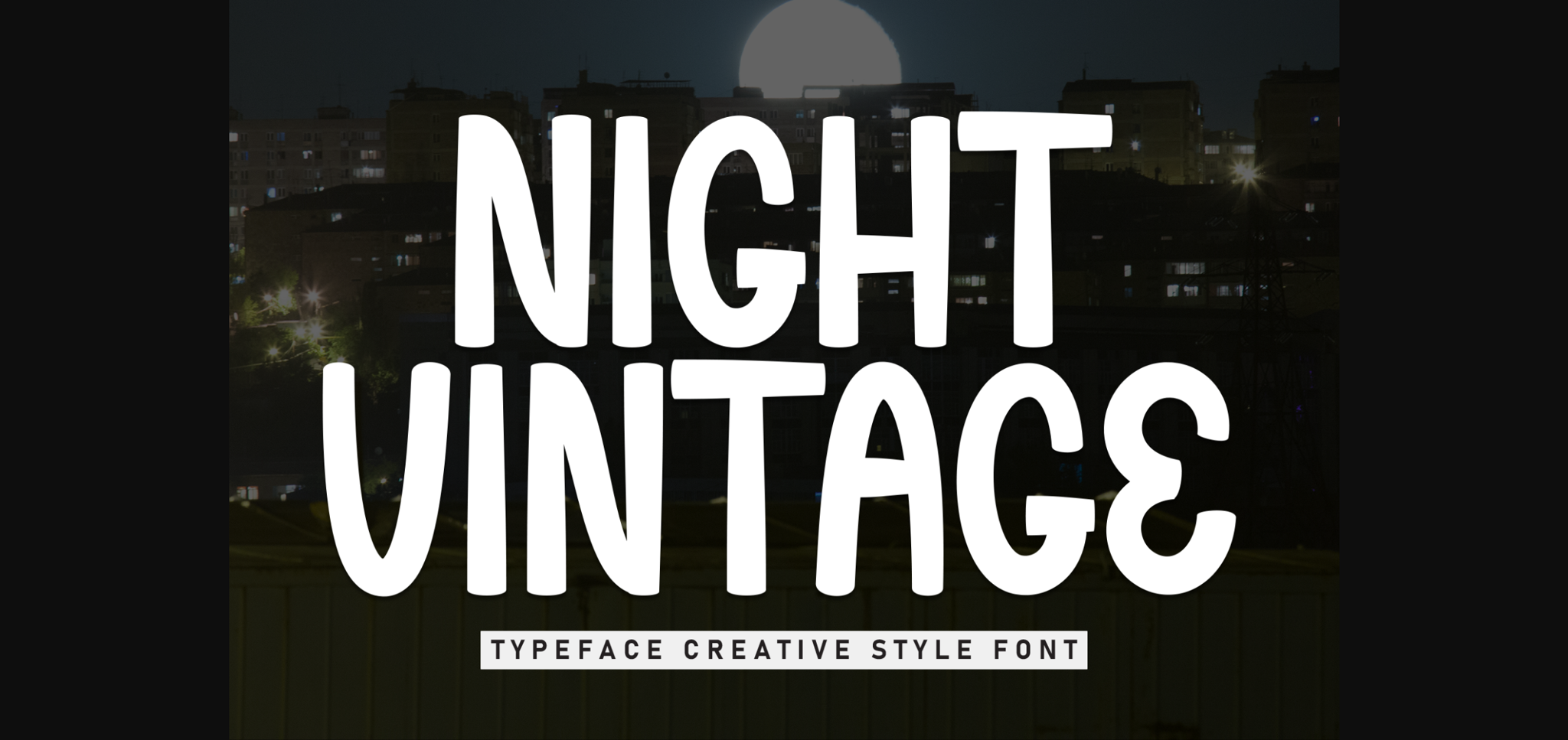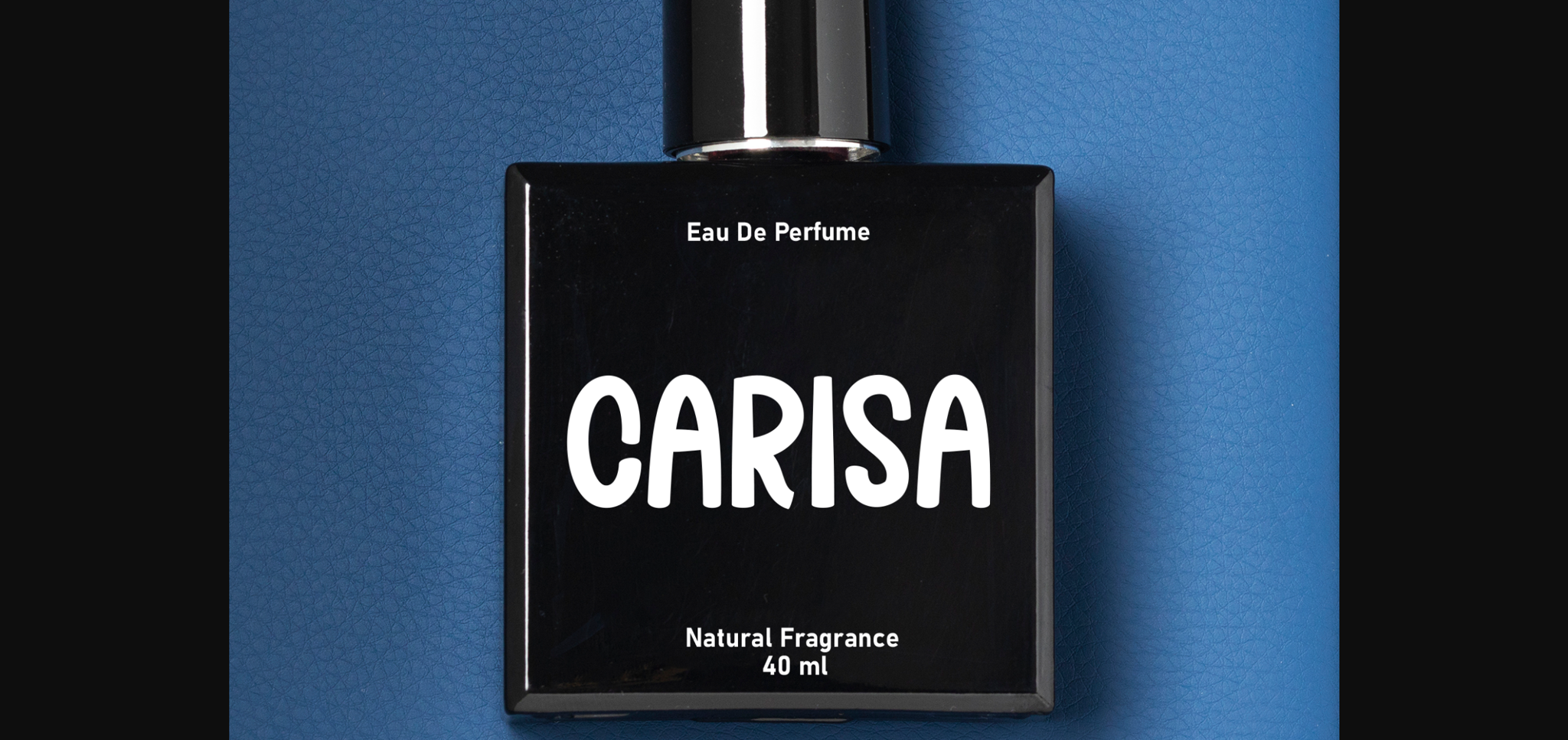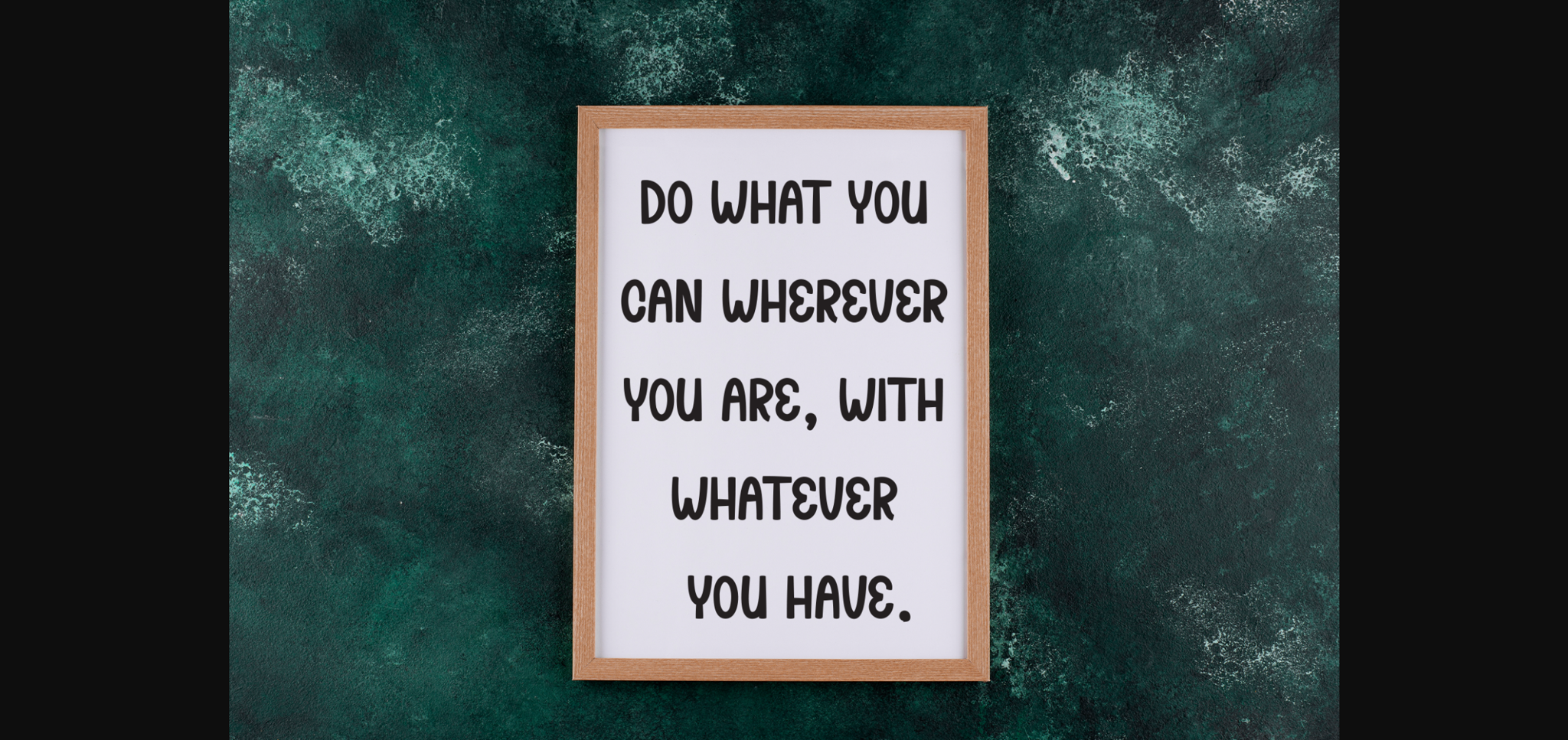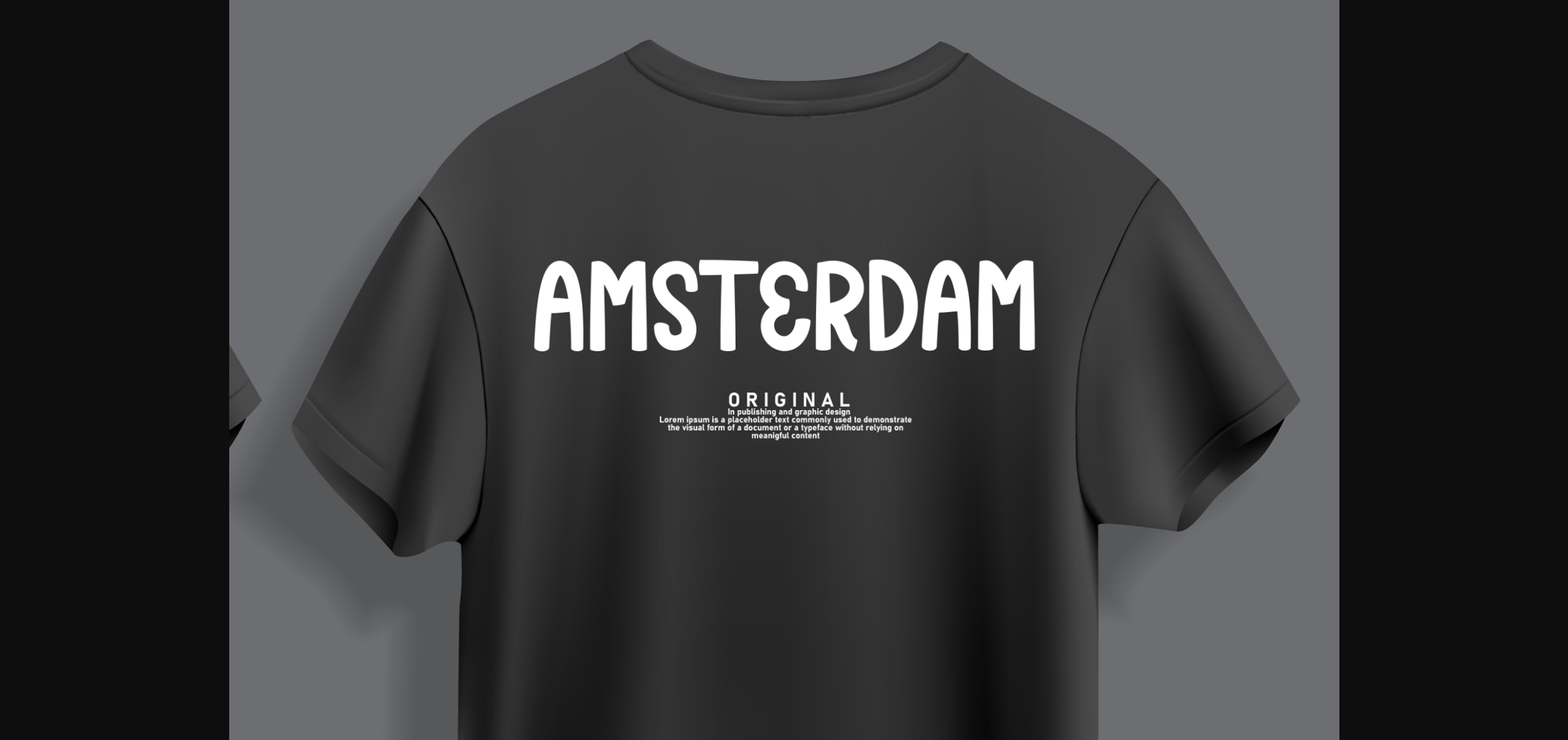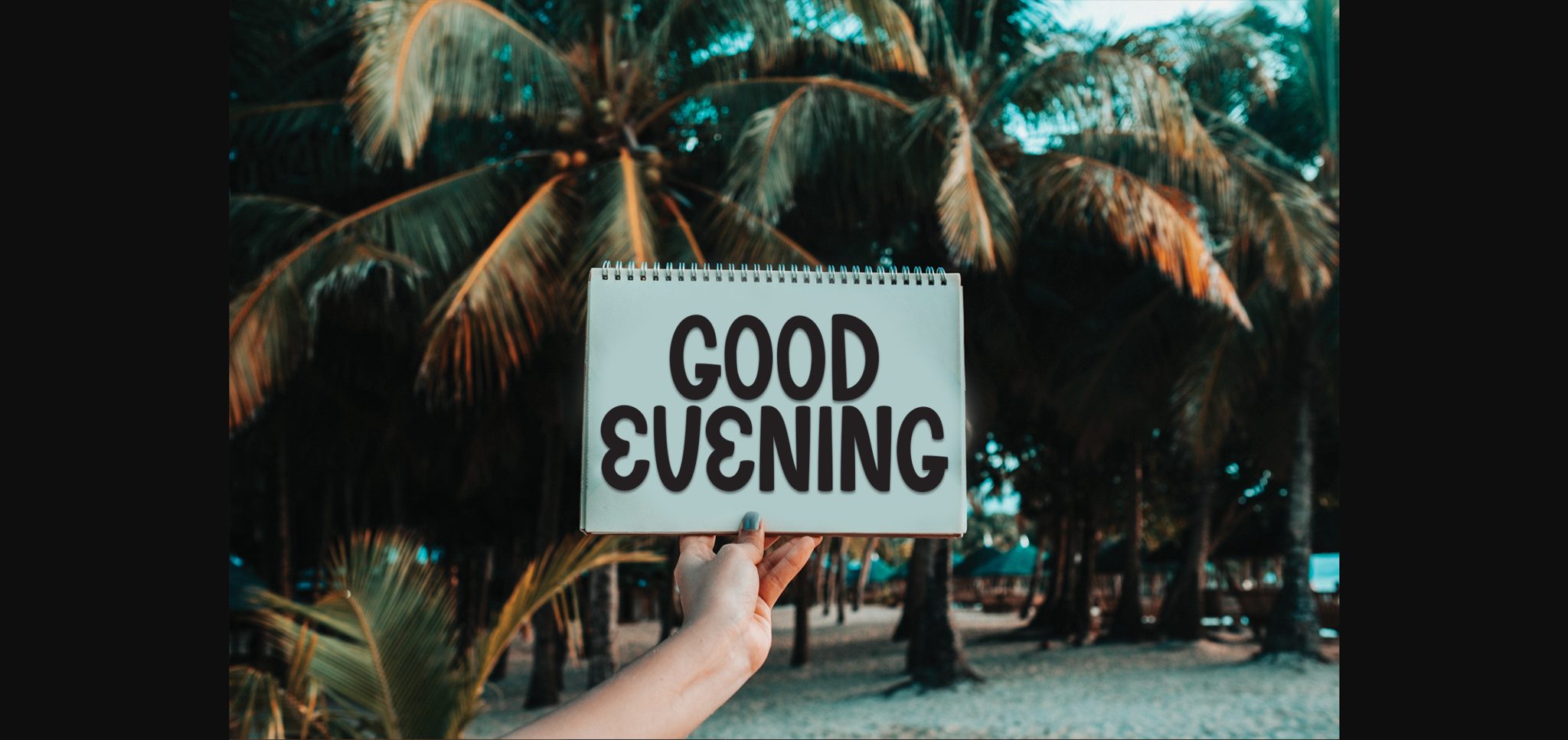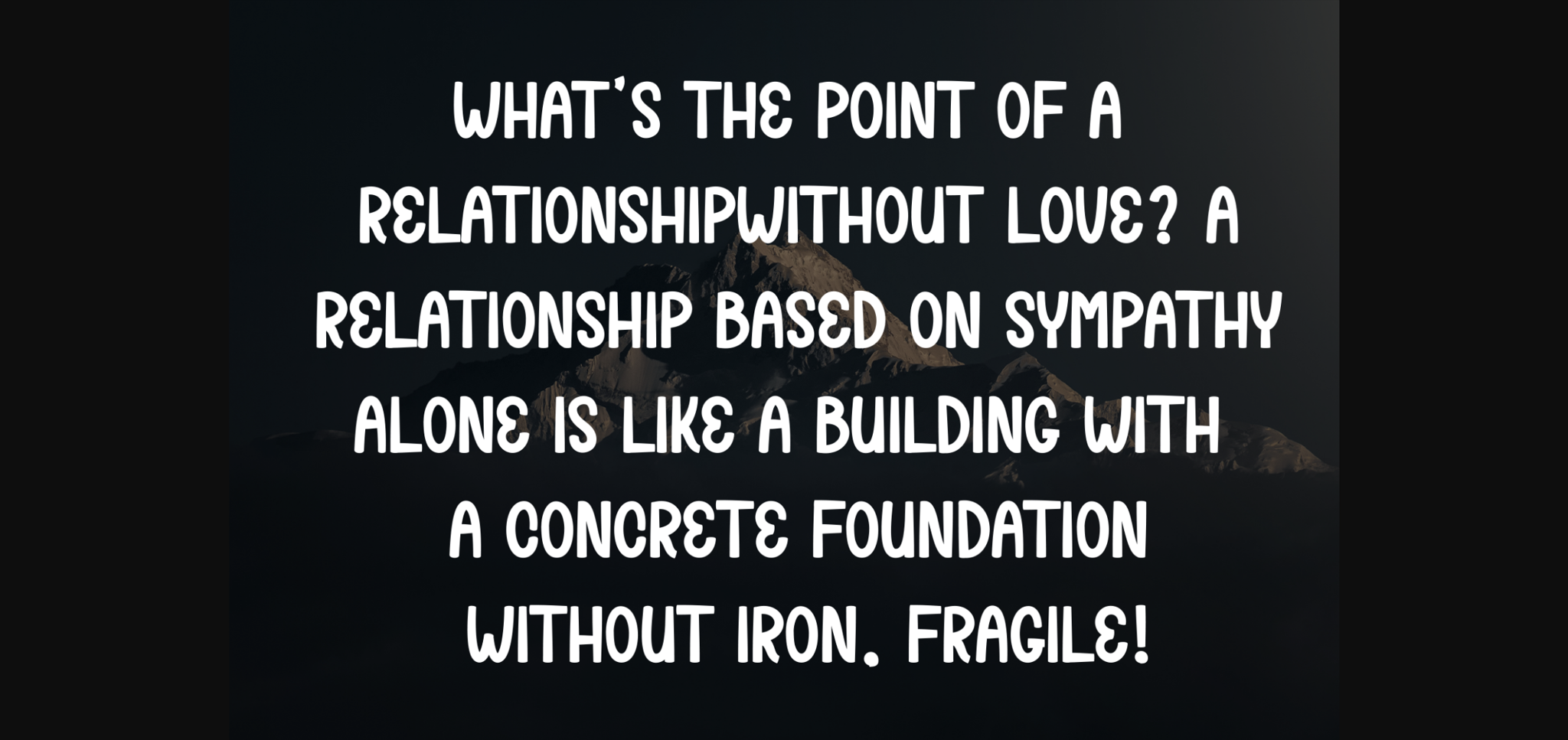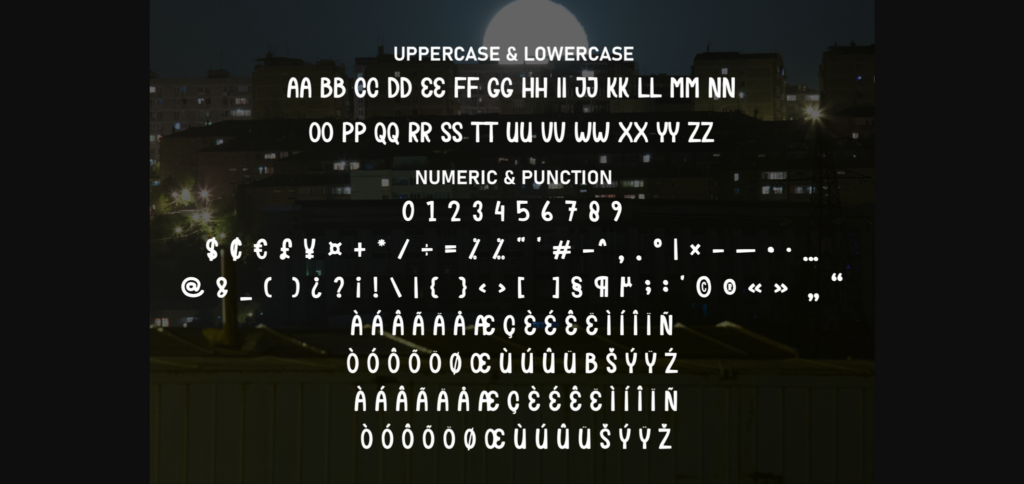
Night Vintage Font
About Night Vintage Font
Night Vintage is a casual sans-serif font with a laid-back vibe and a touch of elegance. Its clean lines and rounded edges give it a friendly appearance, while subtle variations in stroke width add character. Perfect for branding, logos, and editorial designs, this font brings a sense of warmth and approachability.